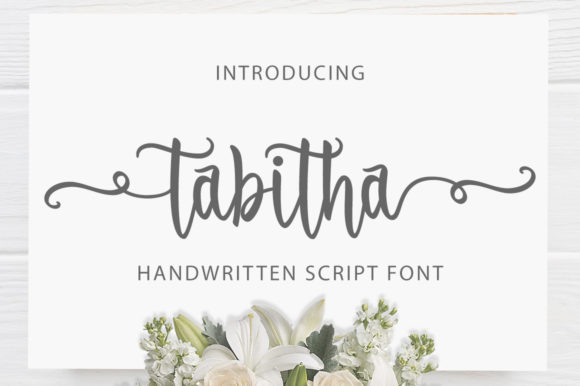
In a world where uniformity reigns supreme, Tabitha Font emerges as a beacon of individuality, a testament to the enduring power of personal expression. This enchanting script font, crafted with meticulous care by Graphix Line Studio, embodies the essence of grace and elegance, beckoning you to step into a realm of creativity unbound.
With its delicate strokes and graceful curves, Tabitha Font dances across the page like a ballerina, captivating the beholder with its effortless beauty. Its characters, meticulously balanced and harmonized, possess an inherent charm that breathes life into your designs, transforming ordinary words into works of art.
Like a versatile chameleon, Tabitha Font seamlessly adapts to a myriad of design aesthetics, effortlessly complementing a diverse range of projects. Its inherent versatility allows it to elevate rustic farmhouse signs, adding a touch of whimsy and charm to your living space. Unleash your inner artist and create personalized cards and invitations that exude warmth and heartfelt emotions. Transform your social media posts into visually stunning masterpieces that capture the attention of your audience.
But Tabitha Font's allure extends far beyond its aesthetic appeal. This PUA-encoded font grants you effortless access to a treasure trove of glyphs and swashes, empowering you to unleash your creativity and add intricate details that elevate your designs to new heights.
With Tabitha Font as your creative companion, you possess the key to unlock a world of endless possibilities. Embrace the boundless freedom to express your unique style, to weave a tapestry of words that captivates and enchants. Allow Tabitha Font to guide you on a creative odyssey, where imagination knows no limits.
Seize this opportunity to embrace the extraordinary, to make a statement that resonates with your audience. Let Tabitha Font become your ally in the pursuit of creative excellence.